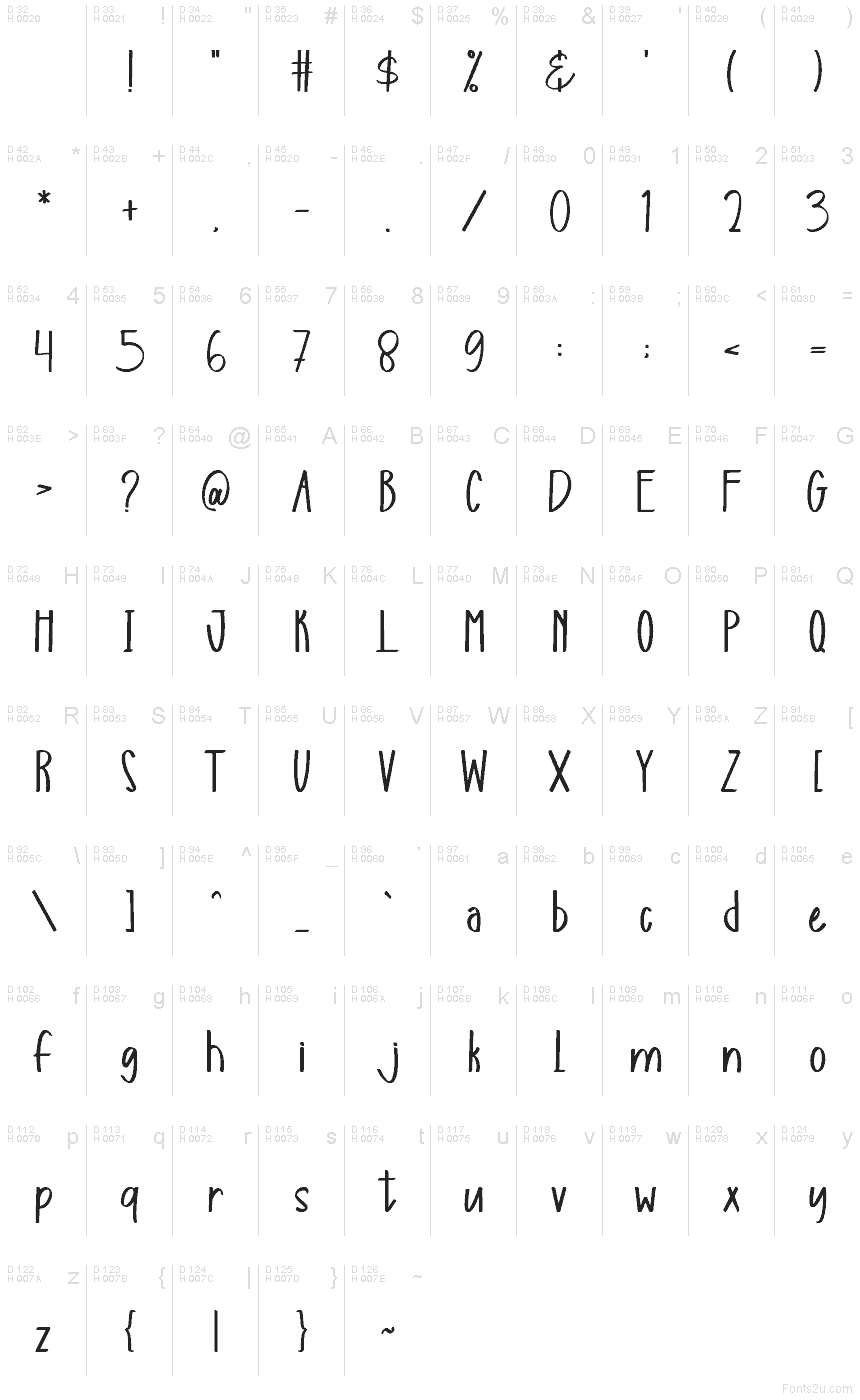
Classy Fruity Regular
Classy Fruity font is a condensed handwritten font with an elegant, modern appearance. Designed by Wildan Type, it carries the qualities of a casual script with an expressive character. The result is a smooth writing visual style that will please readers’ eyes. Don’t hesitate to grab your copy of this free lovely cursive lettering font.
Designers can do some exceptional branding and advertising work with this unique typeface. Business names, restaurant menus, packaging labels, or botanical products are some examples where you can employ Classy Fruity smartly. Posters and social media posts will also look exclusive when armed with this exceptional resource!